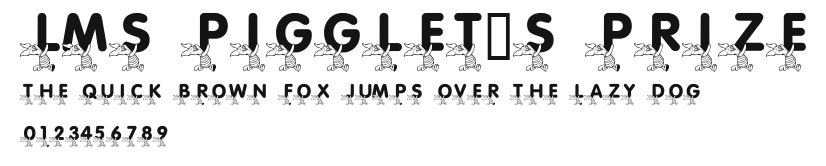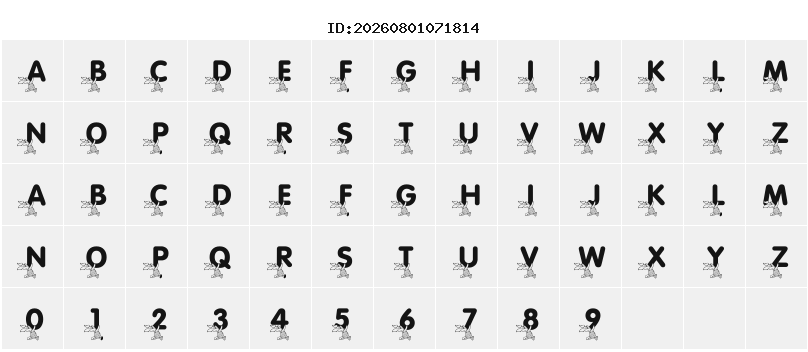
• Font Name: LMS Pigglet's Prize
• Full Font Name: LMS Pigglet's Prize
About LMS Pigglet's Prize.ttf
LMS Pigglet's Prize.ttf is a modern, elegant sans-serif font designed for ultimate readability and visual harmony. Perfect for branding, headlines, web design, and print materials.